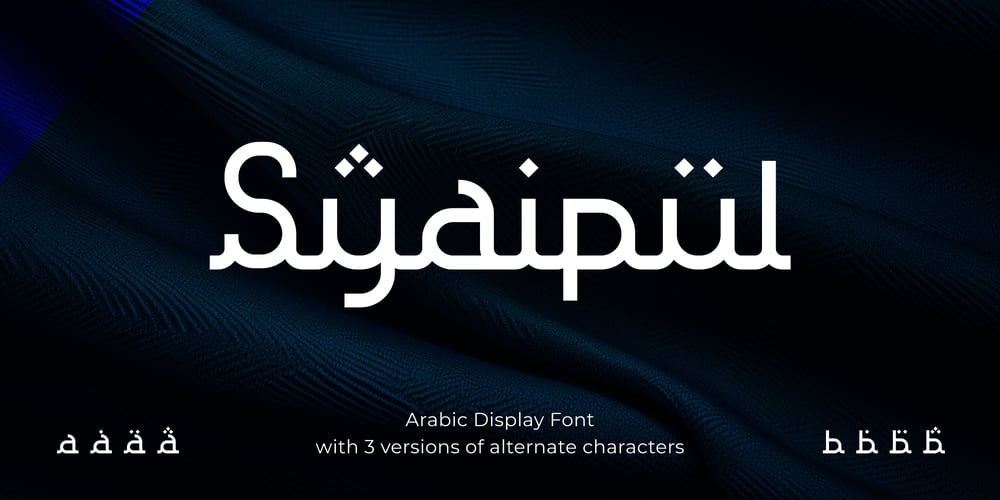
Syaipul
Syaipul font
Syaipul Font Family was designed by Agustian Eko Saputro, Aprilia Nurina Putri and published by Mightyfire. Syaipul contains 1 styles and family package options. Syaipul is font that looks like Arabic letter.The ornament of each letter make the font is unique but still easily to read.This font perfectly suit for calligraphy, Islamic book, headline title, poster, Arabic ornament and many more.We’re honored and hope this font can be the part of your special works. Thank you.